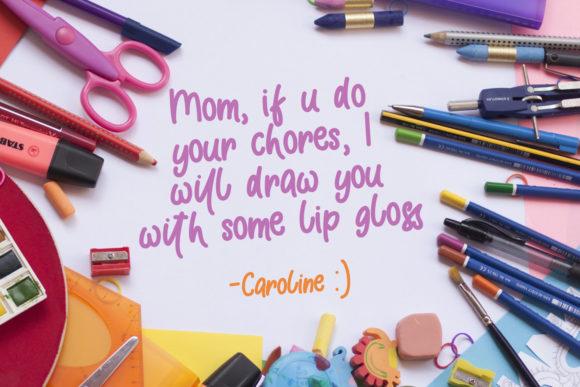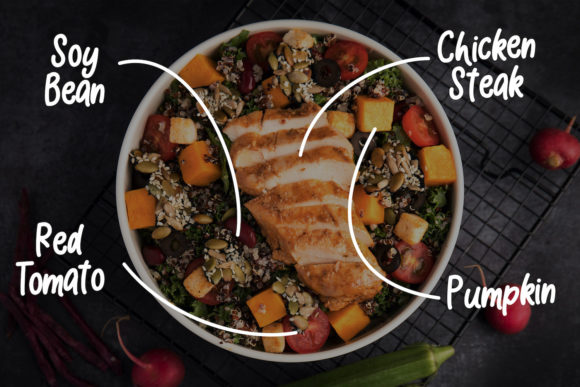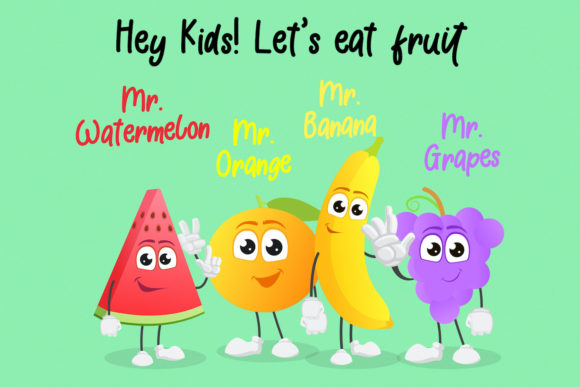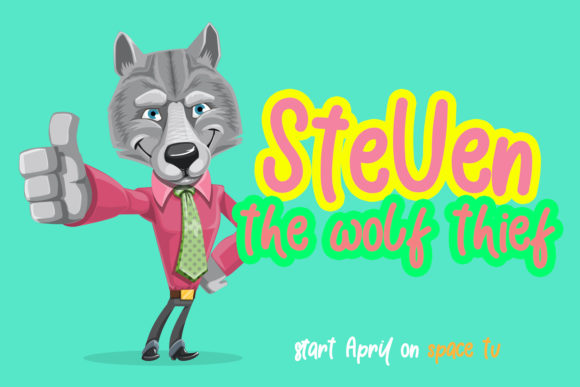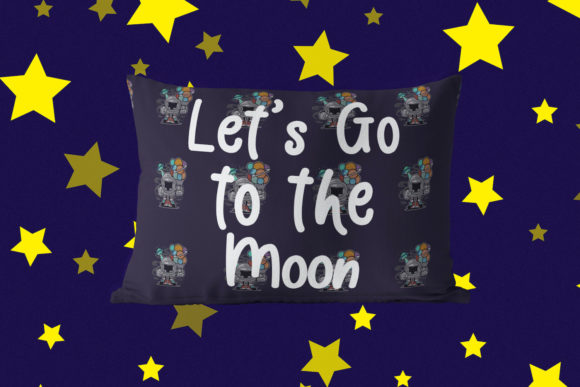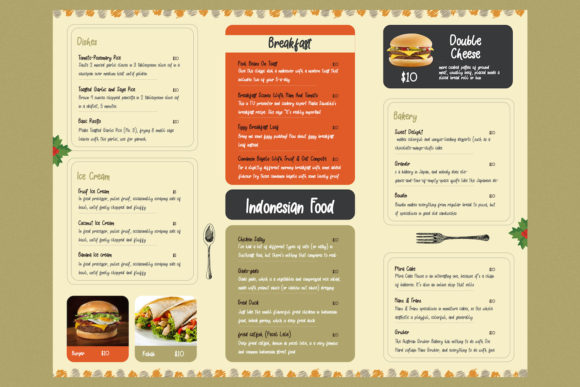
Introducing Comic Boys Font: Unleash Fun and Quirkiness in Your Designs
Are you tired of using the same old fonts in your designs? Do you want to add a touch of fun and quirkiness to your creative projects? Look no further than Comic Boys Font! This enchanting display font is designed to turn any creative idea into a true standout, making it perfect for designers and crafters looking to add some personality to their work.
The Personality of Comic Boys Font
Comic Boys Font embodies the spirit of fun, quirkiness, and authenticity. Its unique and playful design makes it an excellent choice for projects that require a dash of humor and whimsy. Whether you’re working on a children’s book, a cartoon, or a craft project, Comic Boys Font is sure to bring a smile to your audience’s faces.
Key Features of Comic Boys Font
- Unique and Playful Design: Comic Boys Font boasts a one-of-a-kind design that’s sure to grab attention.
- Display Font: This font is specifically designed for display purposes, making it perfect for headlines, titles, and other prominent text elements.
- Fun and Quirky: Comic Boys Font is the perfect choice for projects that require a dash of humor and whimsy.
- Authentic: This font’s authentic design ensures that your projects will stand out from the crowd.
Uses for Comic Boys Font
Comic Boys Font is an incredibly versatile font that can be used in a wide range of projects, including:
- Children’s Books and Educational Materials: Add a touch of fun and quirkiness to your children’s books and educational materials.
- Cartoon and Animation Projects: Bring your cartoon and animation projects to life with Comic Boys Font.
- Craft Projects: Add a personal touch to your craft projects, such as handmade cards, gift tags, and scrapbooking pages.
- Graphic Design Projects: Use Comic Boys Font to add a dash of personality to your graphic design projects, such as posters, flyers, and brochures.
Why Choose Comic Boys Font?
With so many fonts available, why choose Comic Boys Font? Here are just a few reasons:
- Stand Out from the Crowd: Comic Boys Font is a unique and playful font that’s sure to grab attention.
- Easy to Read: Despite its playful design, Comic Boys Font is easy to read, making it perfect for display purposes.
- Versatile: This font can be used in a wide range of projects, from children’s books to graphic design projects.
Tips for Using Comic Boys Font
Here are a few tips for getting the most out of Comic Boys Font:
- Use it as a Display Font: Comic Boys Font is specifically designed for display purposes, so use it to grab attention.
- Experiment with Colors: This font looks great in a variety of colors, so don’t be afraid to experiment.
- Pair it with Other Fonts: Comic Boys Font pairs well with other fonts, so try pairing it with a sans-serif font for a fun and quirky look.
Comic Boys Font is a unique and playful font that’s perfect for designers and crafters looking to add a touch of fun and quirkiness to their projects. With its enchanting display design and versatile uses, this font is sure to turn any creative idea into a true standout. So why wait? Download Comic Boys Font today and start bringing your creative projects to life!